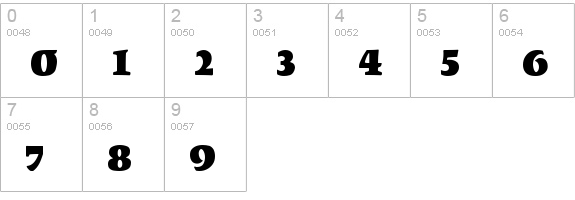
Kompakt MF font is a sleek and modern typeface that exudes sophistication and elegance. With its clean lines and compact design, this font is perfect for a wide range of design projects, from branding to editorial design. The versatility of Kompakt MF makes it a go-to choice for designers looking to add a touch of refinement to their work. What's even better is that Kompakt MF is available for free download at FontsMarket.com. Yes, you read that right - this high-quality font can be yours at no cost, allowing you to elevate your design projects without breaking the bank. So why wait? Head over to FontsMarket.com today and enhance your designs with the stylish Kompakt MF font.